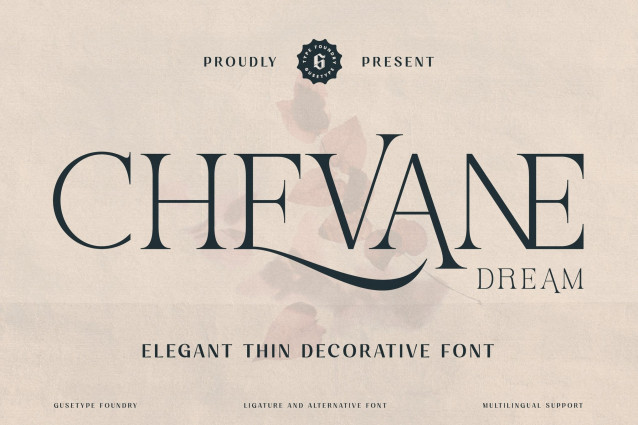
Chevane Dream Font
Chevane Dream Font is a decorative serif typeface inspired by starlight. Its defining characteristics are its crispness and lightness, giving it an elegant and luxurious feel. Chevane Dream can be used for a variety of projects, including branding and identity, posters, magazines, logos, albums, and much more.